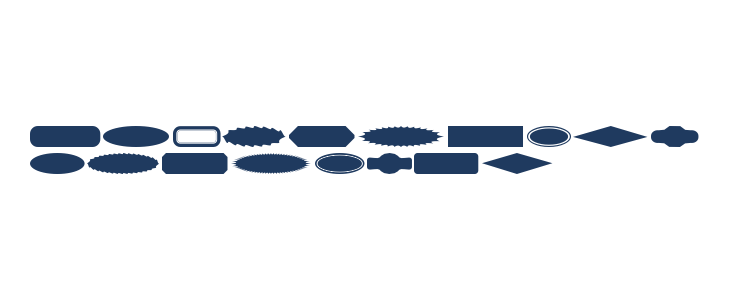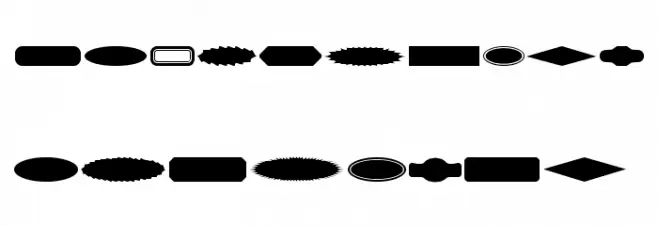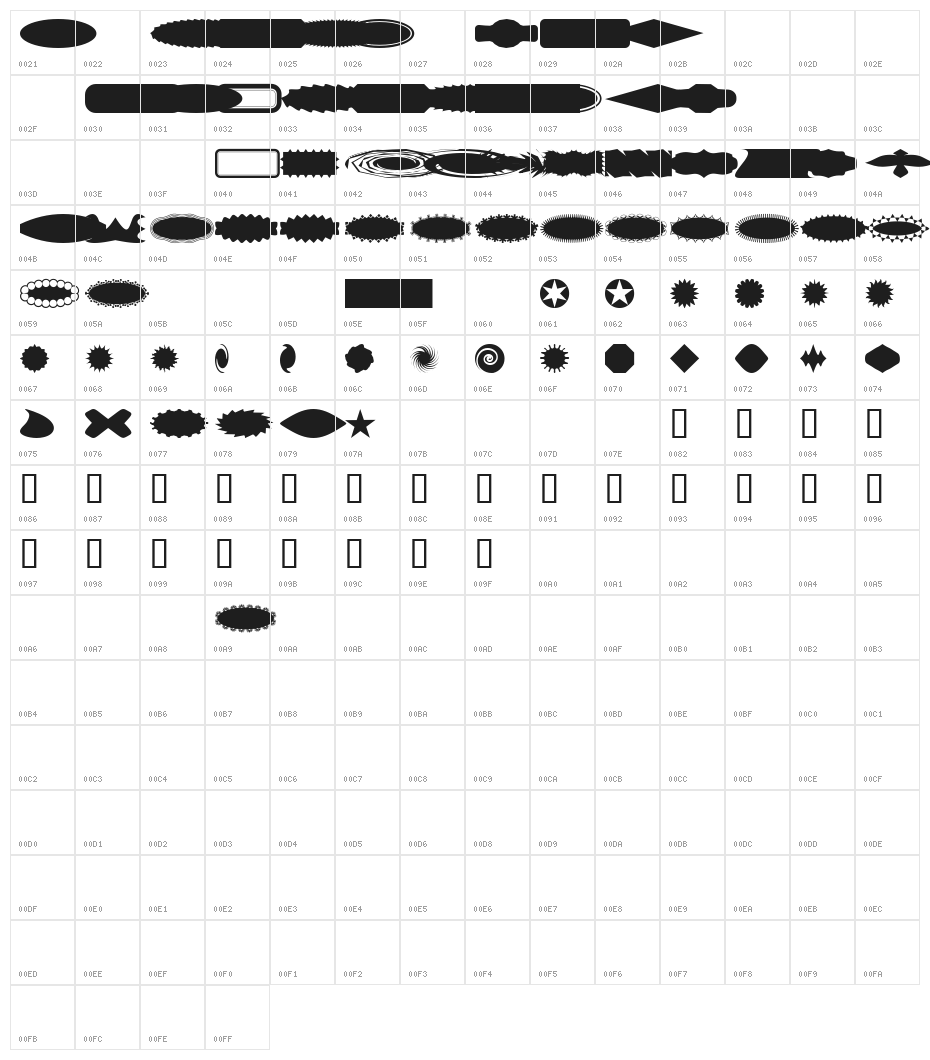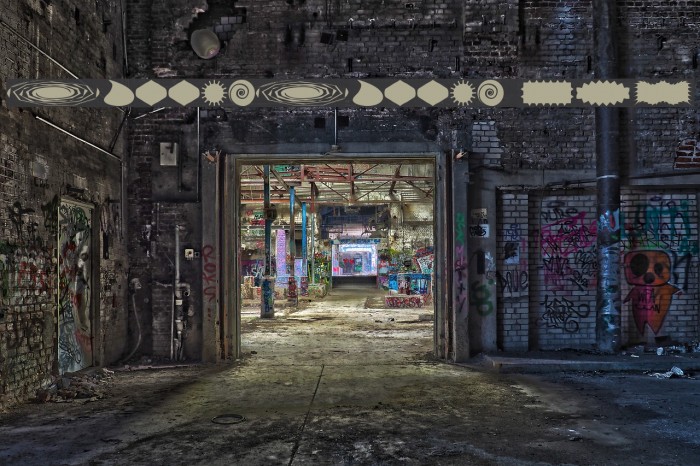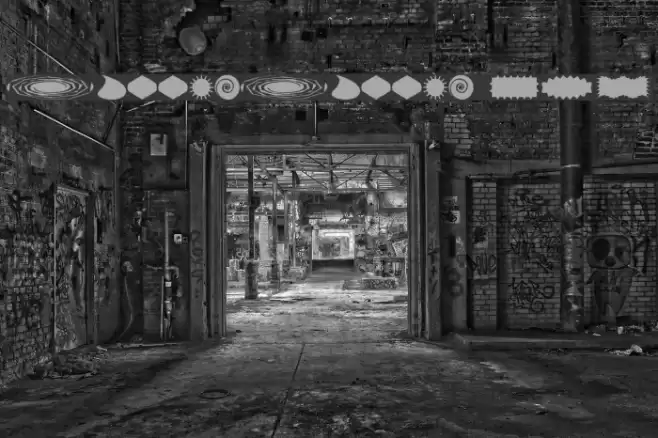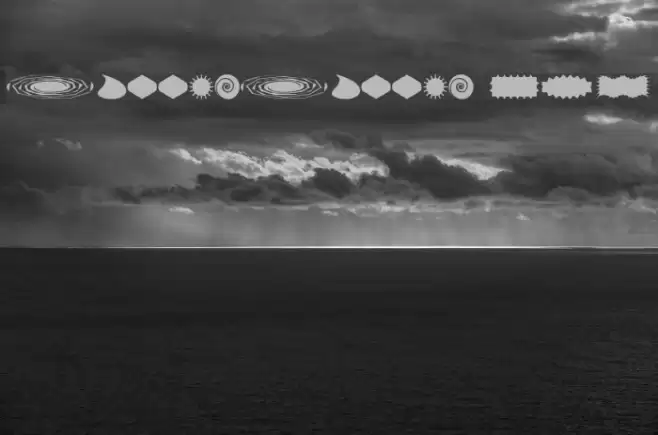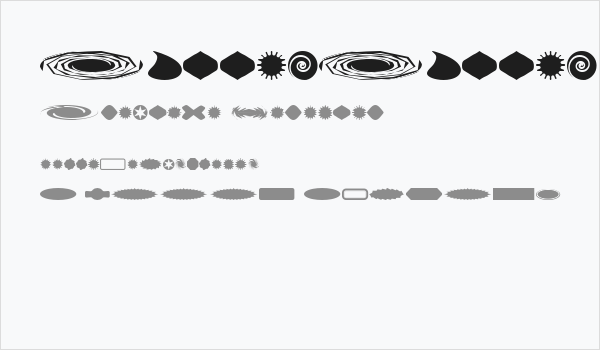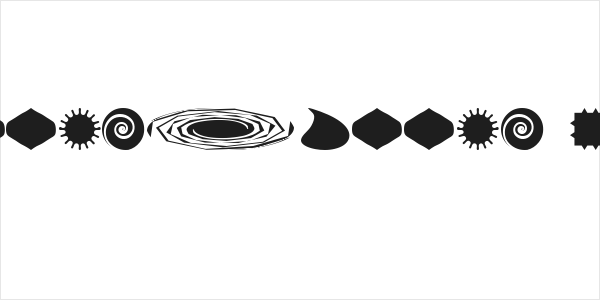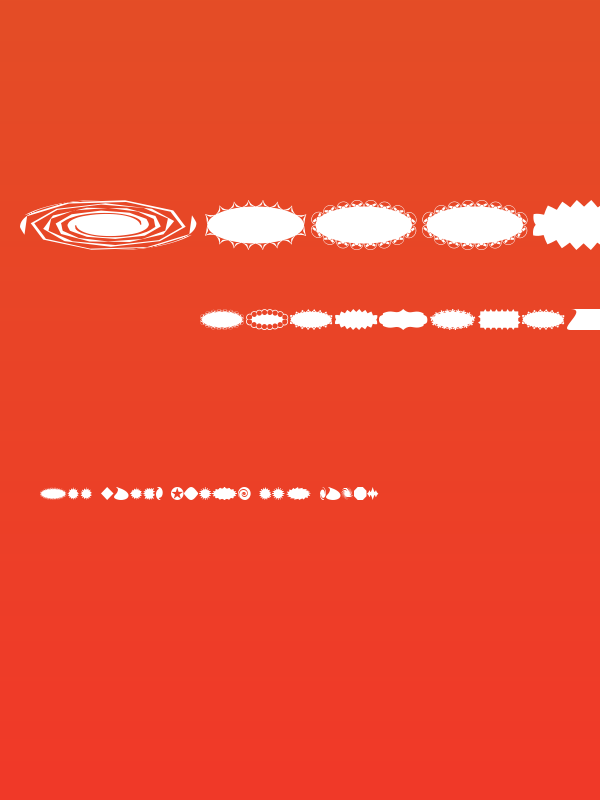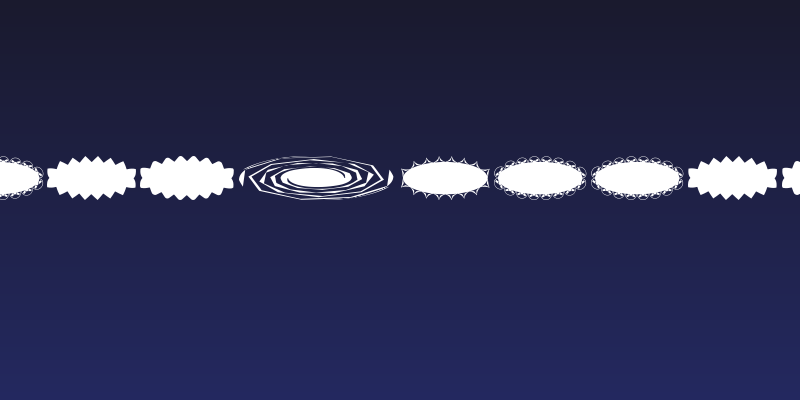
ButtonButton AOE Font
ButtonButton AOE Description
A collection of bold, solid black decorative shapes and symbols, including stars, bursts, ovals, diamonds, and abstract forms, presented in a dingbat or symbol style rather than traditional alphanumeric characters.
| Overall Style | Decorative, Playful, Graphic |
| Use Case | Icons, Decorative elements, Borders, Emphasis marks |
| Proposed Projects | Graphic design accents, borders, badges, comic book effects, digital scrapbooking, and playful branding elements. |